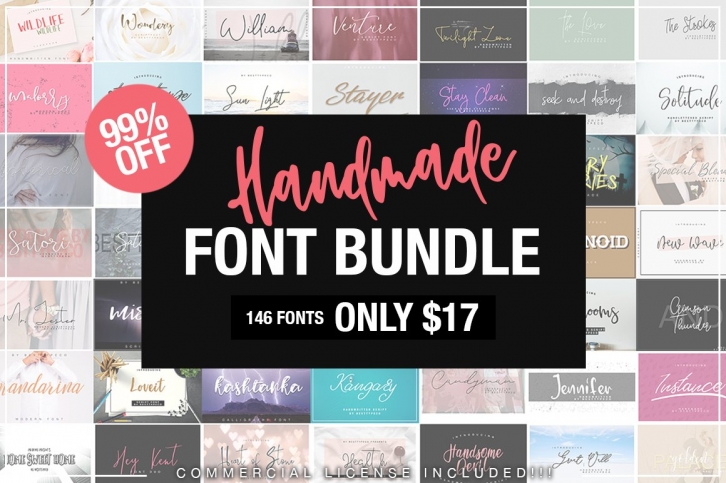
Summer Sale 146 in 1 Bundle is a beautiful font that was designed by besttypeco. It's a great choice for designers and creatives who need such a font. It was released on May 18, 2022 and the file size is 7.88 MB. Summer Sale 146 in 1 Bundle may give a more youthful, expressive and casual look to your project. It is a very beautiful, refined, elegant, and high-quality font.